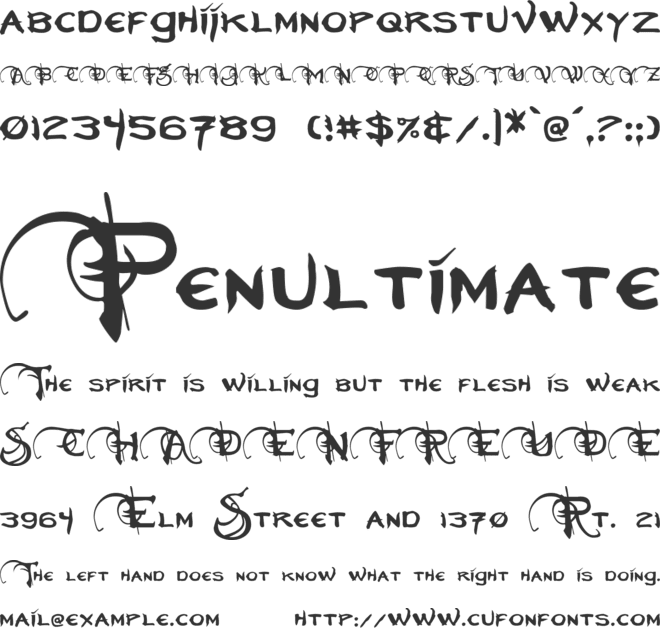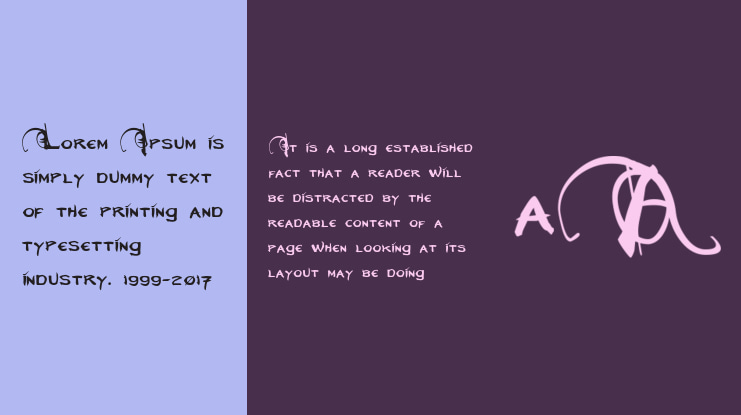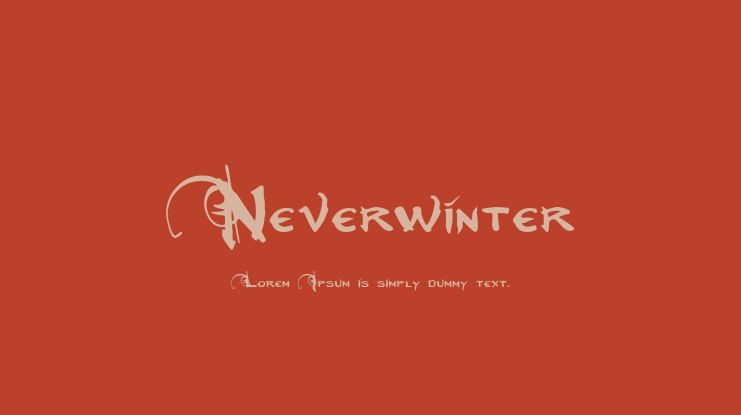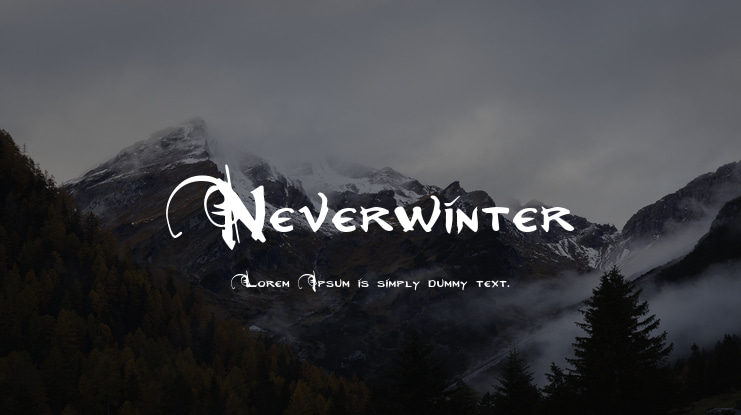
Neverwinter Font Family
Neverwinter is a highly stylized typface is based on the logo of Bioware’s popular Dungeons and Dragons: Neverwinter Nights computer game (and has since become the official font!) Includes full alphabet, extended punctuation, euro. Includes regular bold, italic, and bold-italic faces.